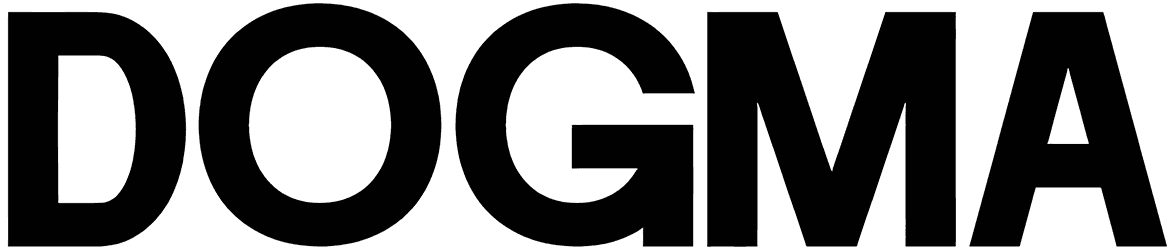
Dogma Font
As a popular and ageless option, you can always count on sans-serif fonts for any topic, and the Dogma font is one of them. Even without lowercase letters support, this basic font can humbly bold your intended words. For a carwash poster, an academic website design, or anything else, you can use this item and give them a professional model.